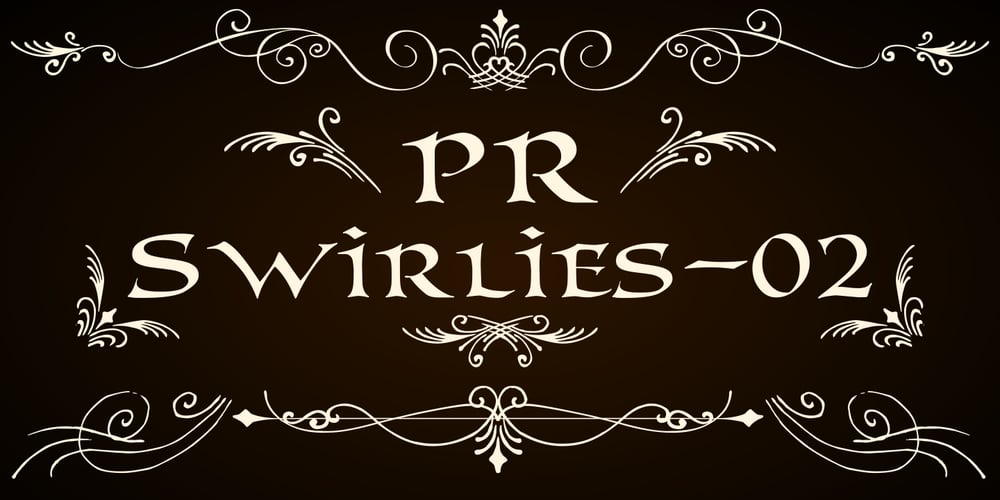
PR Swirlies 02
PR Swirlies 02 font
PR Swirlies 02 Font Family was designed by Peter Rempel and published by PR Fonts. PR Swirlies 02 contains 1 styles and family package options. This font is a collection of calligraphic ornaments suitable for invitations, gift tags,etc. These designs are assembled from hand drawn elements, and mirrored elements have been modified slightly, to increase the hand-drawn appearance. They would also be right at home framing the dialogue screens of a silent film.